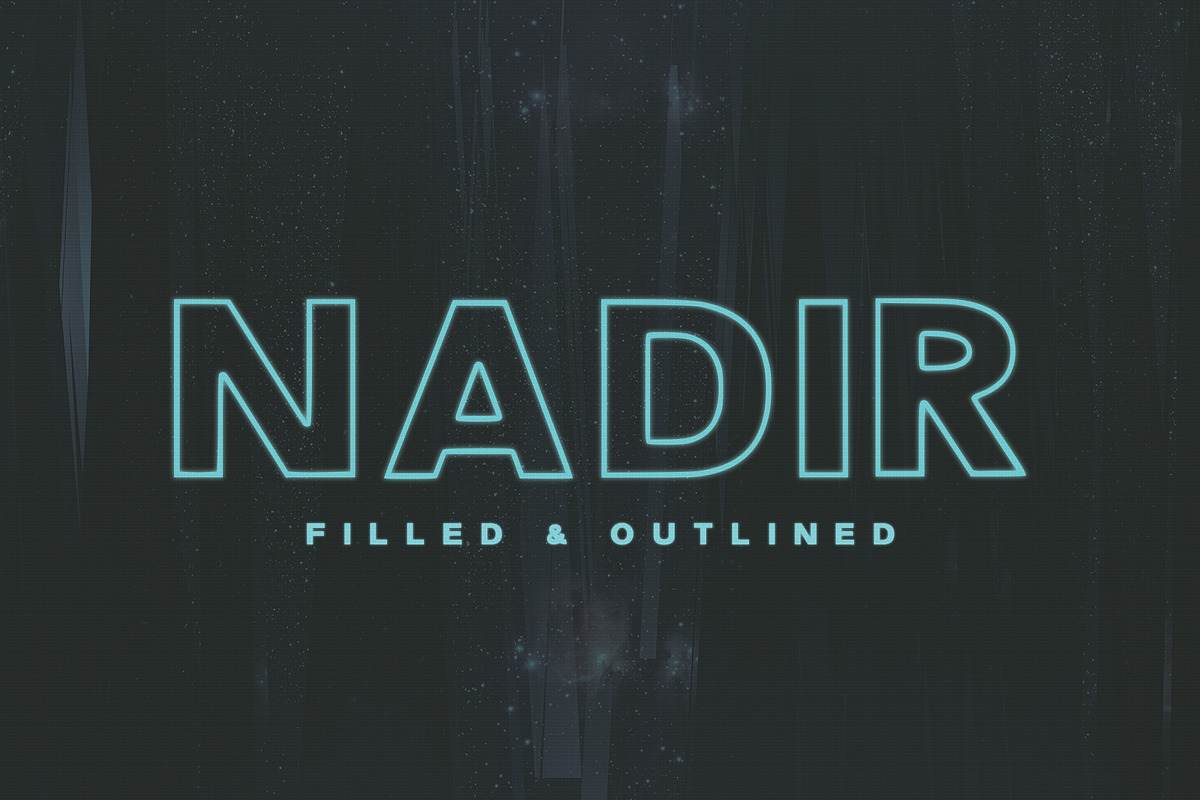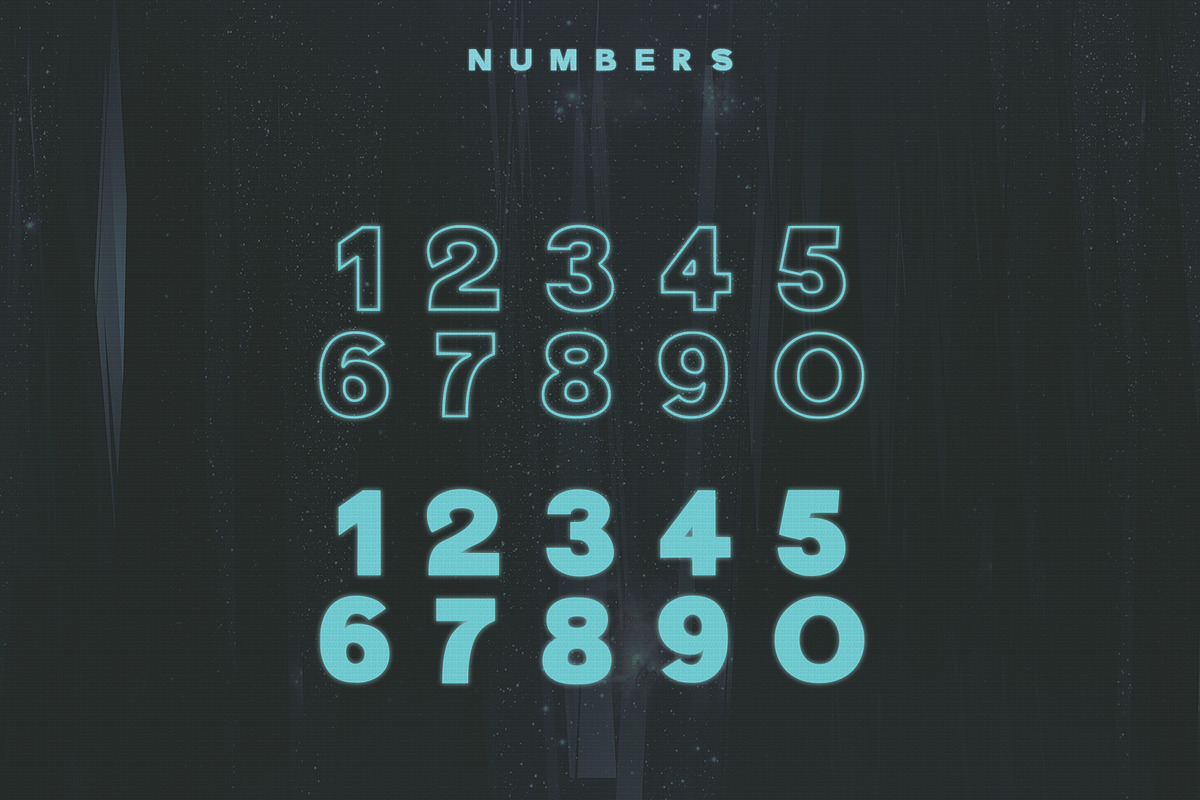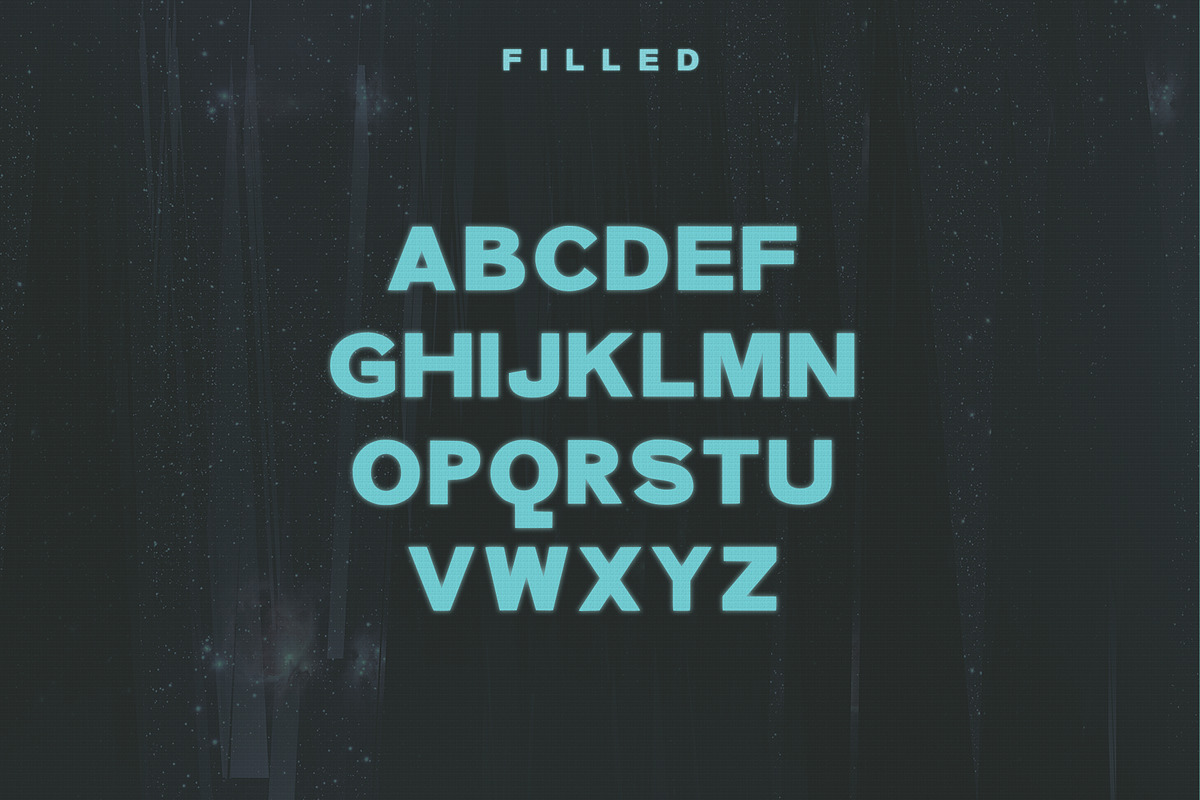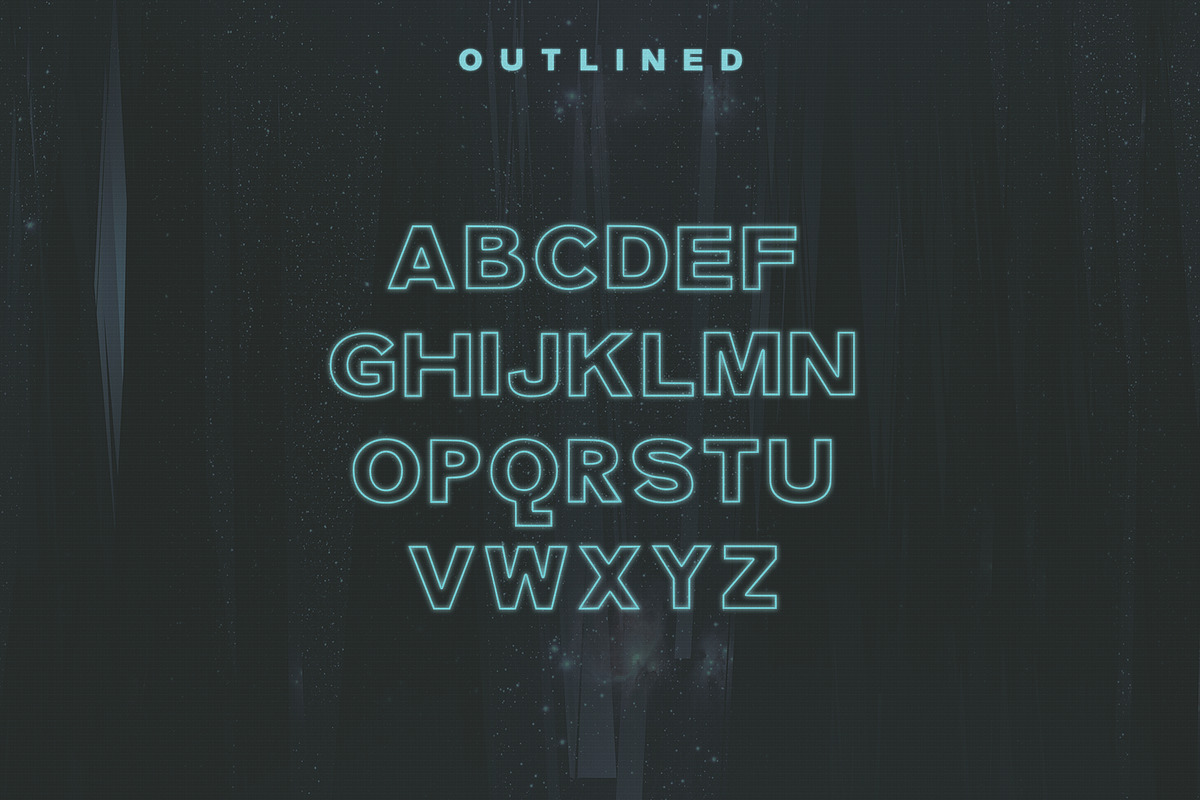
Nadir Typeface
Nadir is a bold sans typeface. It comes in both filled & outline styles as well as uppercase, lowercase, numbers, basic symbols, and punctuation.
- It comes in both filled & outline styles as well as uppercase, lowercase, numbers, basic symbols, and punctuation.